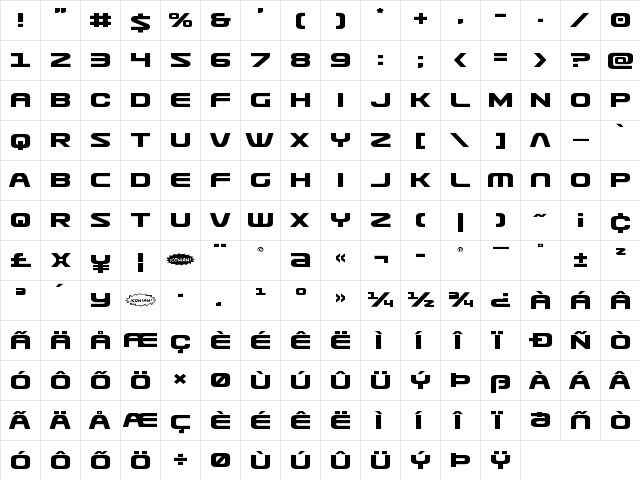
Usuzi Expanded Expanded
Design Context for Usuzi Expanded Typeface
Usuzi Expanded is a composed and adaptable typeface that performs quietly and consistently across a wide range of design contexts.